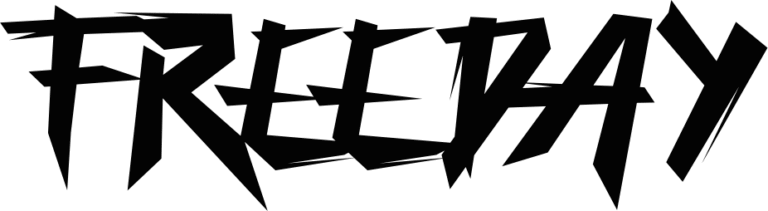
Colored Crayons Font
Designed byJSH creates
Today’s font is an eroded font called Colored Crayon. Each character is designed like it is written with a crayon and it will picture a scary scene and give an adrenaline boost to the reader.
You can use this crayon font for any gaming title, crime and scary movie headlines, punk/rock/metal song or album, or any Halloween-related texts or banners. This font only includes major characters and it is an all-caps font.